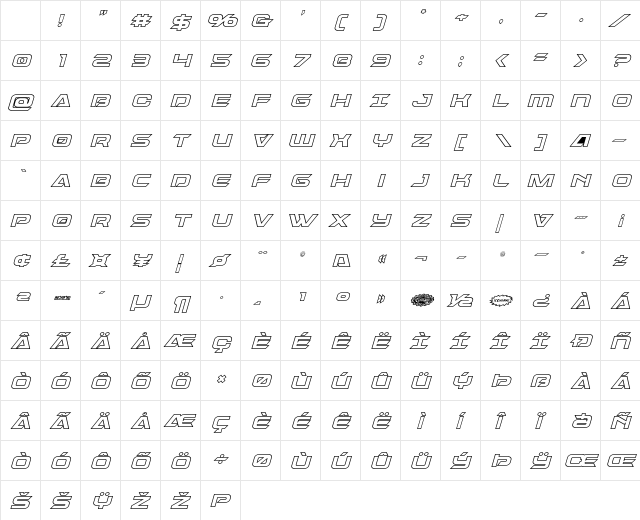
Complete Dameron Bold Outline Italic glyph index. Displaying only characters natively supported by Dameron Bold Outline Italic font.
Dameron Bold Outline Italic is built around its visual character rather than neutral utility - its distinctive forms are designed to make an impression at display sizes. The slanted form adds forward momentum and visual energy. Its bold stroke weight gives it real presence on the page.
Font Pairing: Pair with a clean neutral sans-serif for body copy to let Dameron Bold Outline Italic's character lead without overwhelming the composition.
Pro Tip: Use Dameron Bold Outline Italic exclusively at display sizes - it was designed to be seen, not read at length. Let a neutral companion handle body copy.